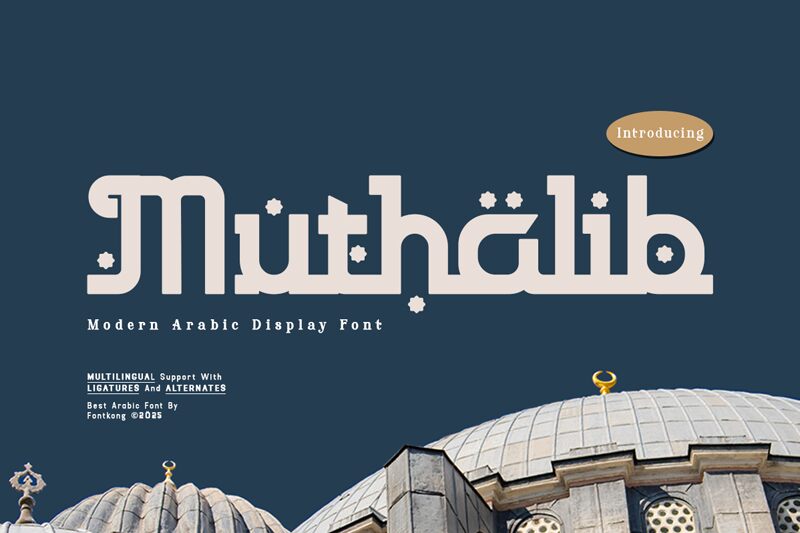
Muthalib font by Kong Font is a free modern typeface with Middle Eastern influences. Its geometric, structured design blends contemporary display features with culturally inspired decorative elements. The font’s visually striking appearance and confident style make it versatile for a variety of projects.
Ideal use cases include branding, packaging, poster design, book covers, event invitations, logo creation, advertising, website headers, social media graphics, and magazine layouts. Muthalib’s distinct flair adds a unique touch to creative endeavors.